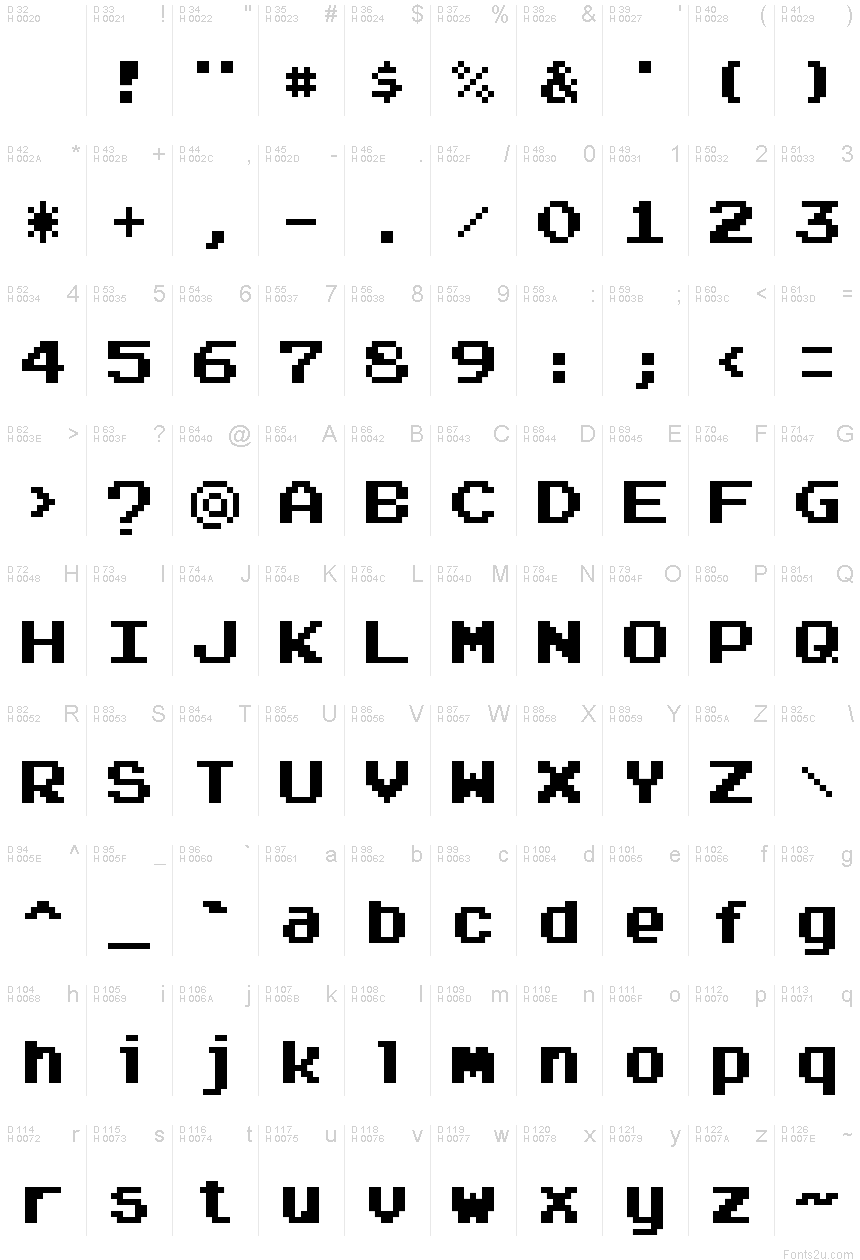
Arcadepix
Arcadepix font by Reekee of Dimenzioned is a free bitmap pixel font that drops you straight into an 8‑bit arcade cabinet. Its chunky square forms, tight spacing, and sharp right angles feel like they’re glowing off a CRT screen, while the slightly quirky letter shapes keep it playful instead of rigid. The rhythm is bold and blocky, so every word reads like a high‑score stamp.
Using Arcadepix, you can give game titles, retro UI overlays, pixel art covers, Twitch or YouTube graphics, stickers, and event posters that authentic arcade buzz. This free font holds up especially well at small sizes where its grid snaps cleanly, and it also scales into big, shouty headlines. Pair Arcadepix with a simple geometric sans for body text to keep the focus on those nostalgic, crunchy pixels.